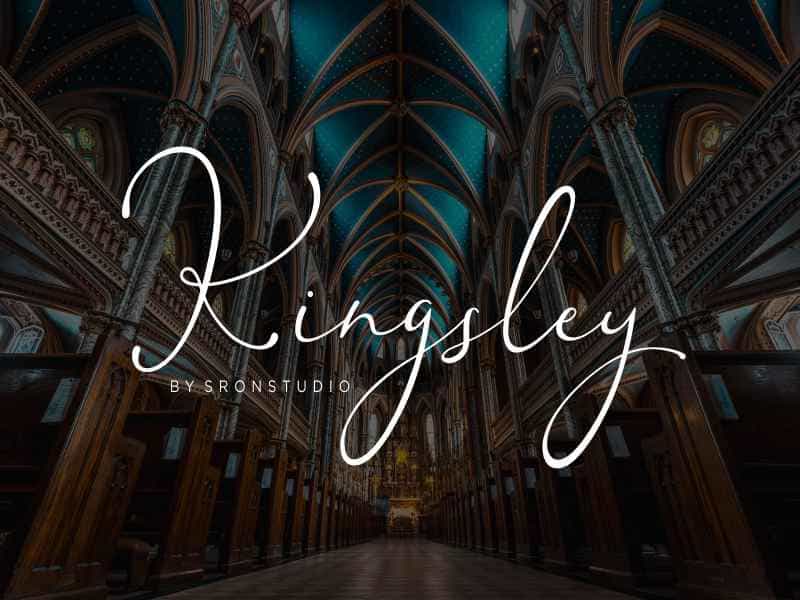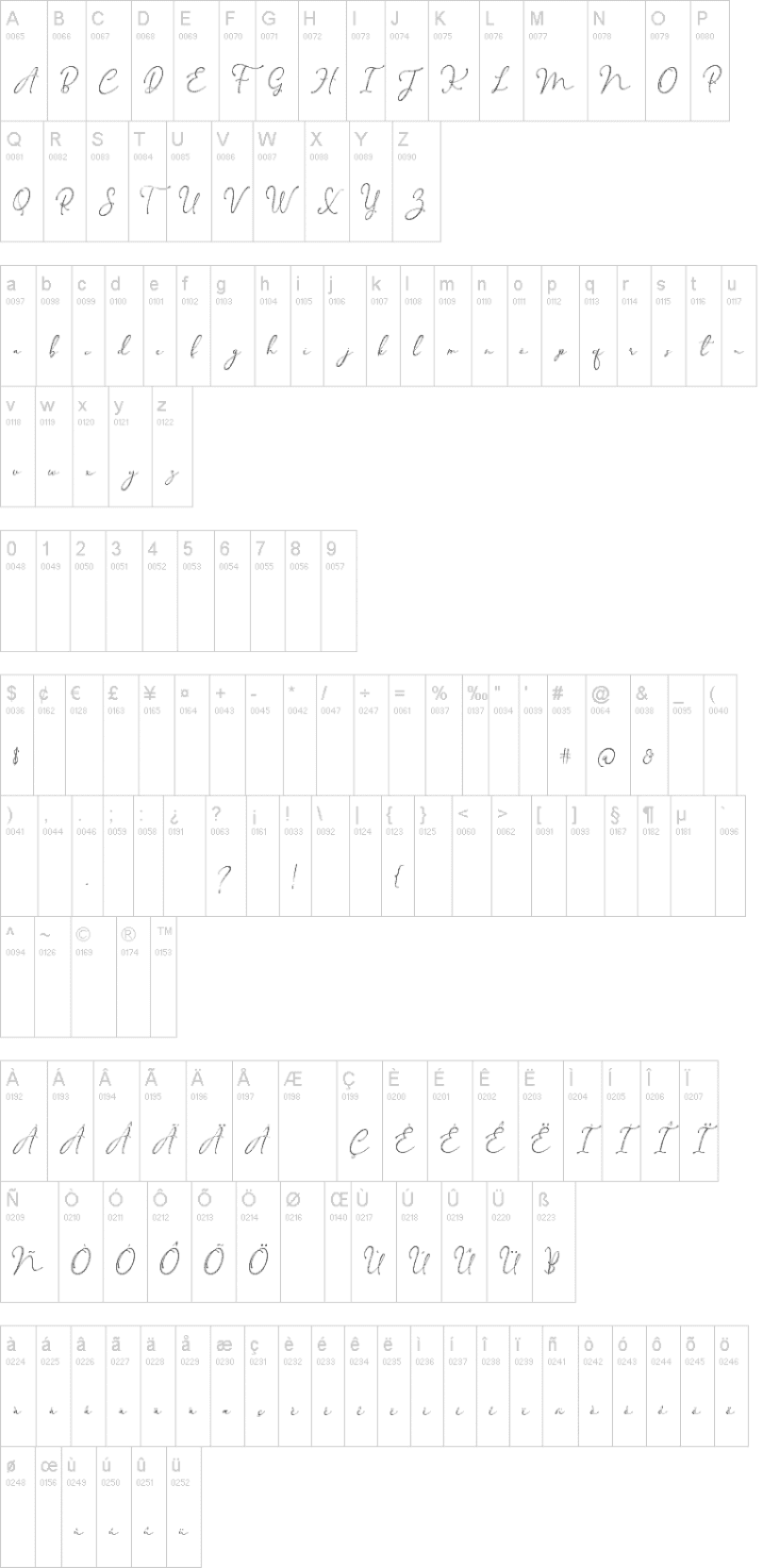
Discover Kingsley Font Free, part of the Calligraphy collection—a versatile and unique font perfect for adding a personal touch to your projects. Download it for free and enjoy crafting designs with style, from invitations to social media posts. This font is available exclusively for personal use, giving you the freedom to create without limits. Unlock your creativity with Kingsley Font Free today!